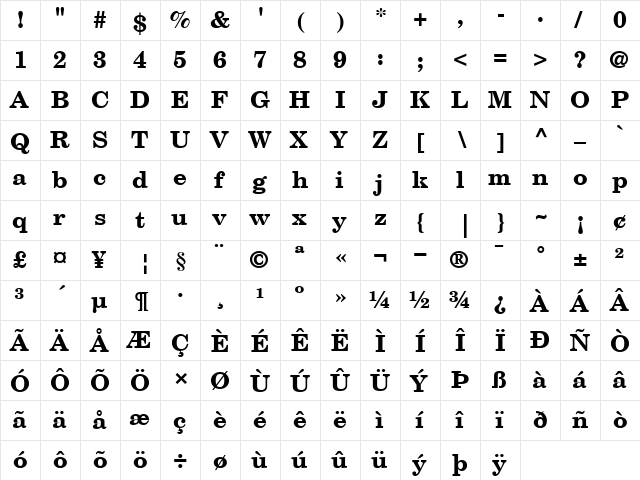
NewCenturySchoolbookBold-Book Book
Design Context for NewCenturySchoolbookBold-Book Typeface
NewCenturySchoolbookBold-Book is a composed and adaptable typeface that performs quietly and consistently across a wide range of design contexts. The heavy weight commands attention and anchors typographic hierarchies.
Pro Tip: Use NewCenturySchoolbookBold-Book in both headline and body roles to test its range before committing to a single application.